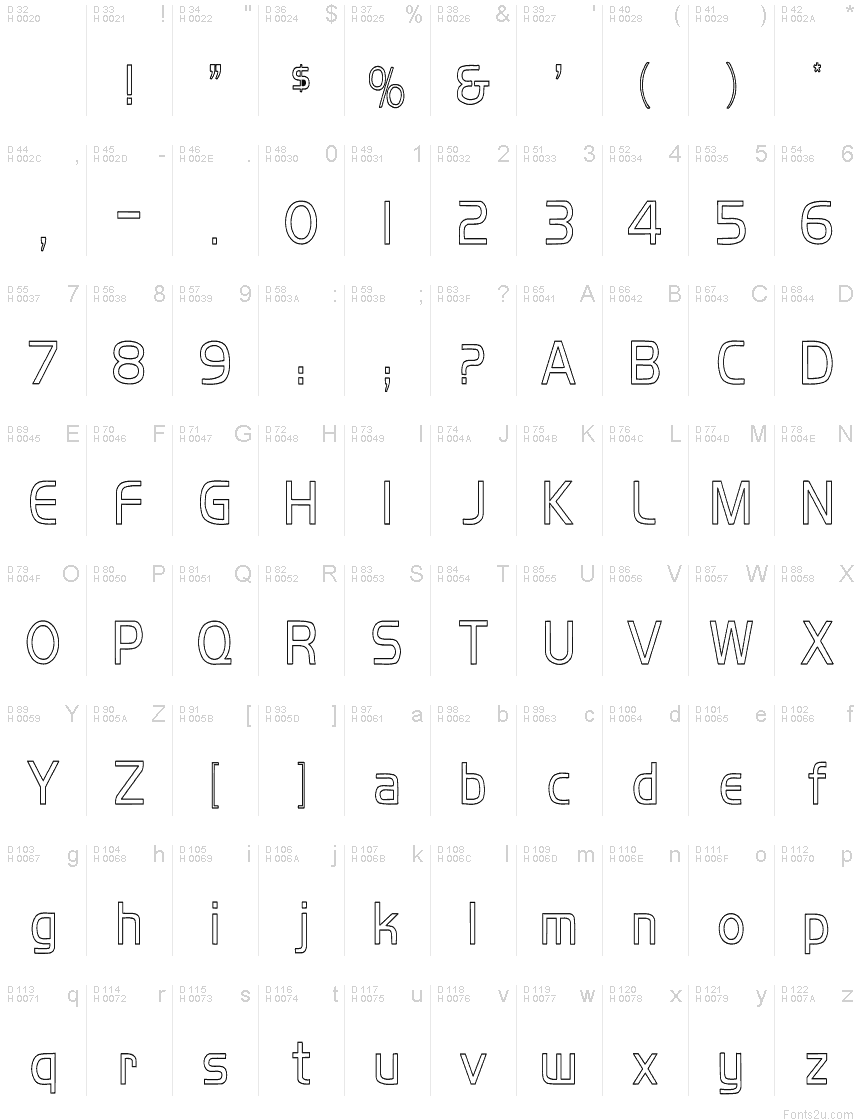
Koshgarian-LighHC
Koshgarian Ligh HC font is a free outlined display typeface with a clean, tubular skeleton that feels both technical and playful. Its even, monoline strokes trace out each letter like a neon tube, leaving the centers open and airy so your backgrounds can breathe through the words. The tight, smooth curves and squared touches create a crisp, engineered look that stands out without feeling heavy or cluttered.
Using Koshgarian Ligh HC, your titles and logos gain a sleek wireframe presence that shines on posters, tech branding, album covers, packaging, UI headings, and event flyers. This free font works beautifully when set large and given generous spacing, especially over gradients or photography. For supporting text, pair it with a simple geometric sans in a solid weight to keep the focus on its outlined character.